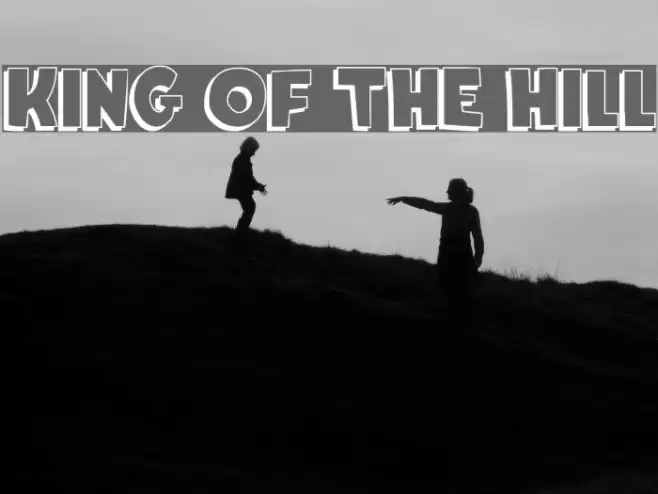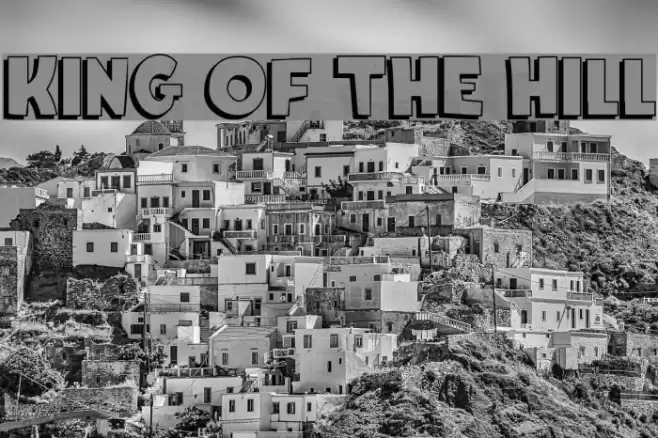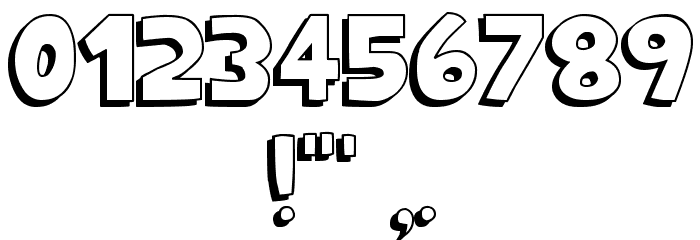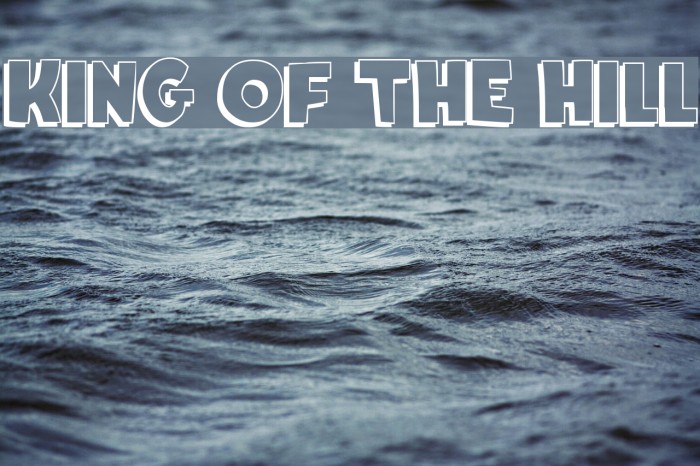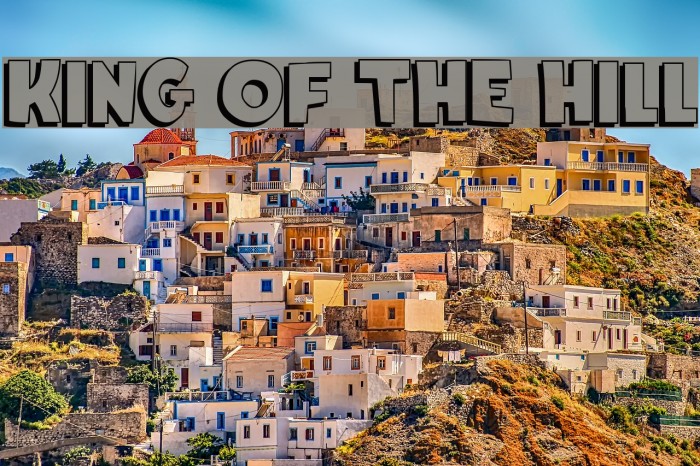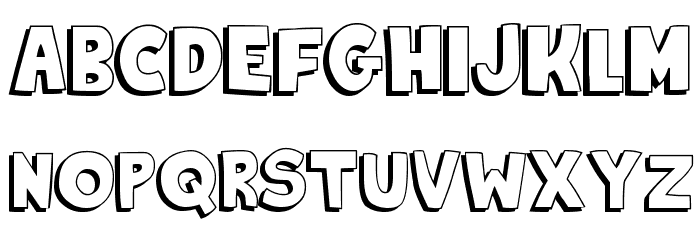
King Of The Hill Font
King Of The Hill Description
This font features bold, playful characters with a cartoonish style, characterized by thick outlines and a slightly exaggerated, whimsical appearance. The letters are uppercase and have a three-dimensional effect, giving them a dynamic and lively look. The numbers and special characters follow the same design, maintaining consistency throughout. The font's boldness and unique style make it stand out, perfect for projects that require a fun and engaging visual element.
A bold, cartoonish font with thick outlines and a playful, three-dimensional style from Cartoon fonts.
- Proposed Projects: Ideal for children's books, comic strips, playful branding, and eye-catching posters.
- Overall Style: Playful, Cartoonish